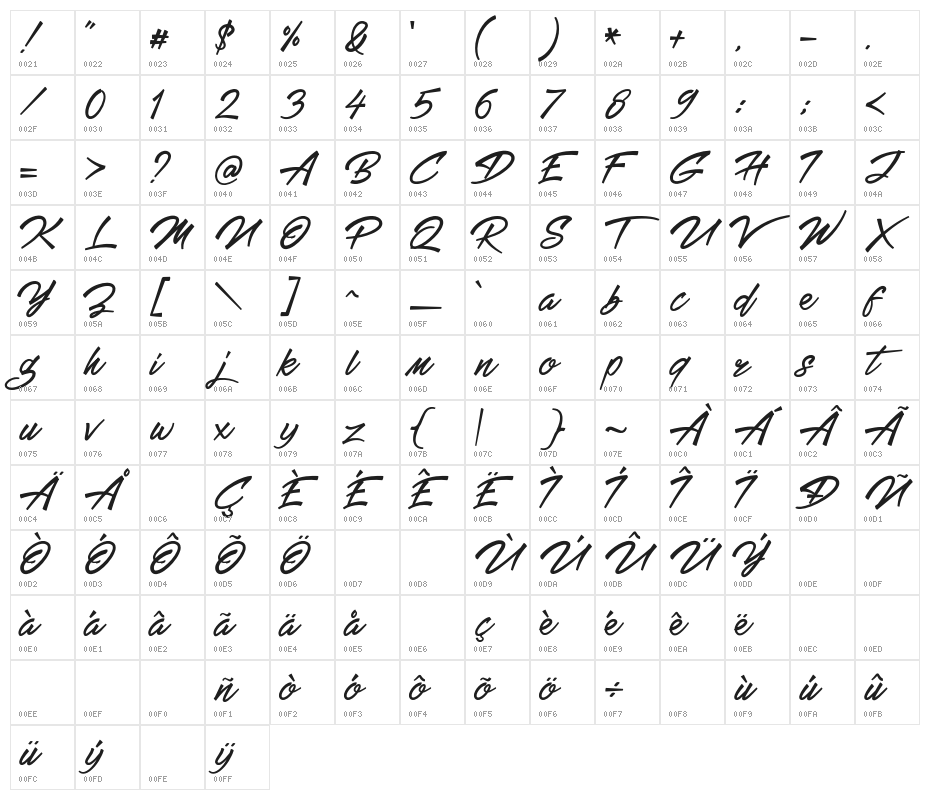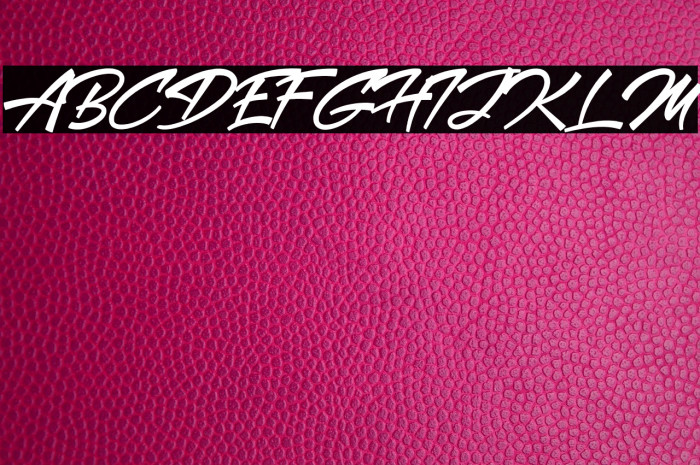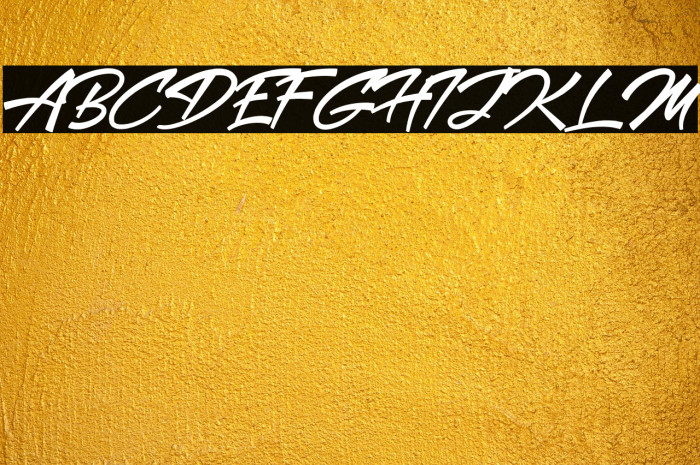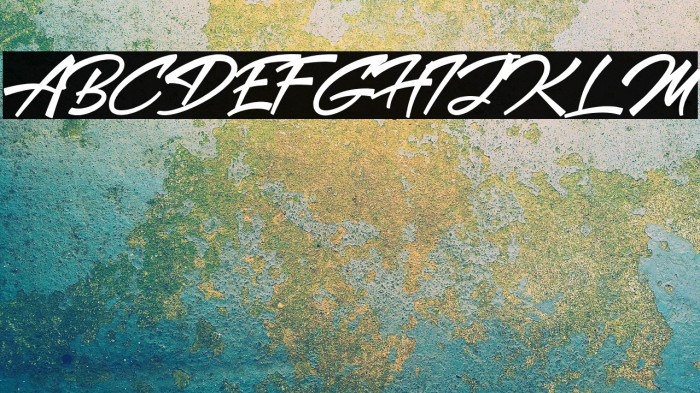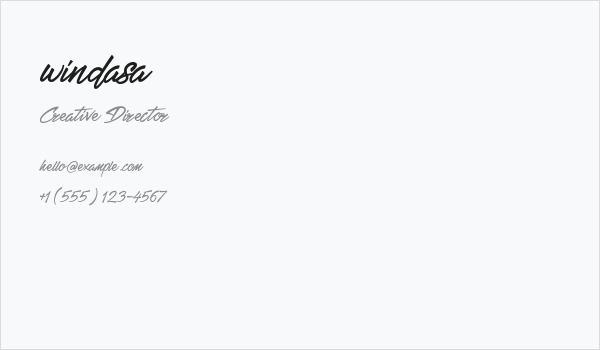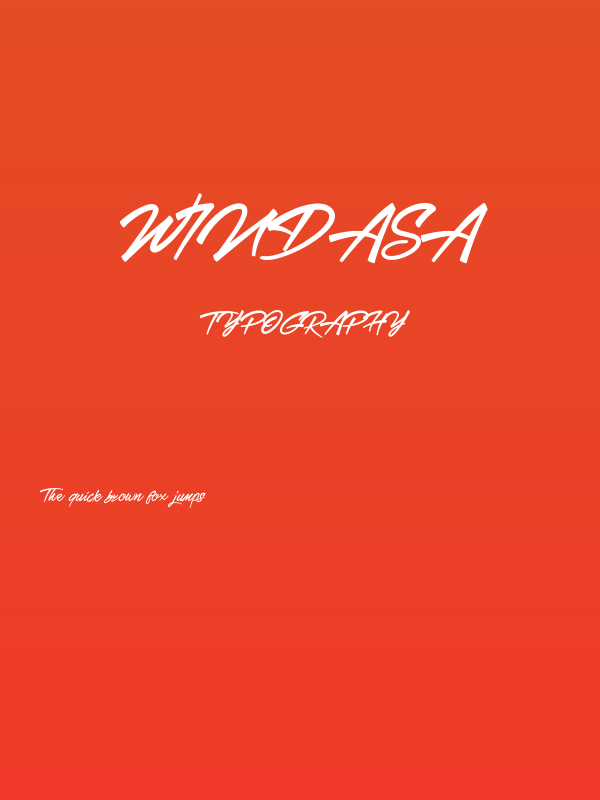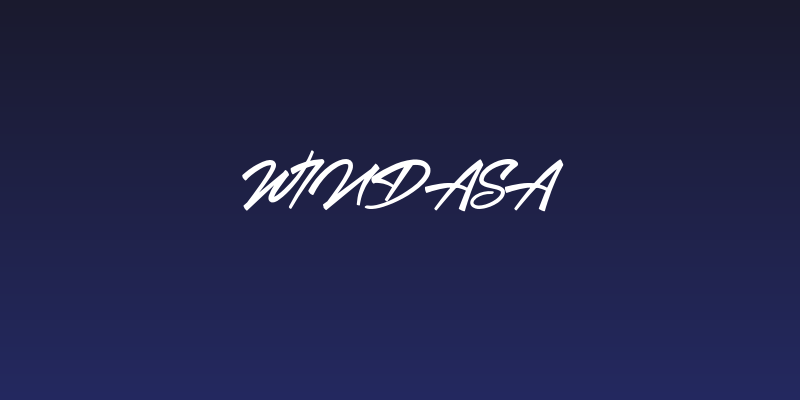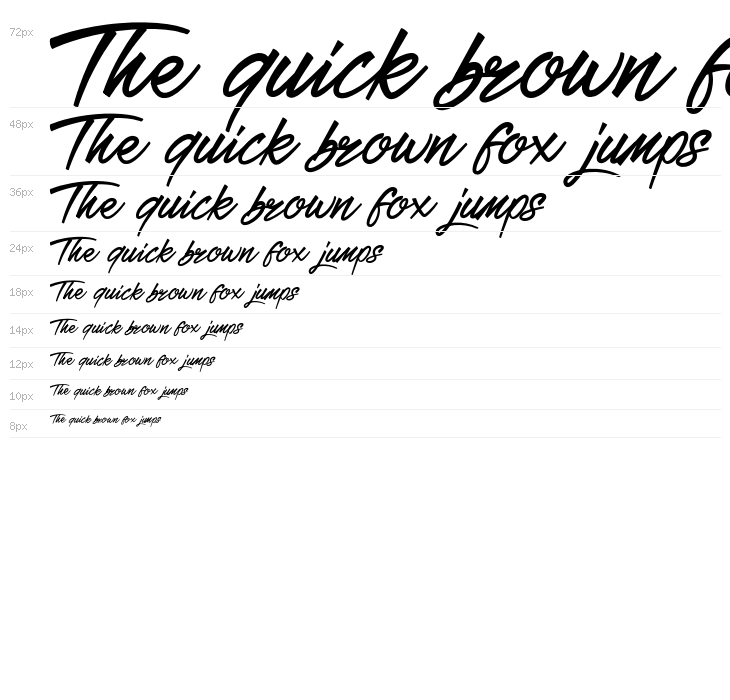
windasa Font
windasa Description
This font exudes a dynamic and energetic style, characterized by its bold, flowing script that mimics the fluidity of handwriting. The letters are interconnected with smooth, sweeping strokes, giving it a sense of motion and elegance. The uppercase letters are slightly more angular, while the lowercase letters maintain a consistent, rounded form. Numbers and special characters follow the same stylistic cues, ensuring uniformity across all elements. The overall appearance is both modern and expressive, making it suitable for projects that require a personal touch.
| Use Case | Logos, Headlines, Invitations |
| Proposed Projects | Ideal for branding, invitations, greeting cards, and any design requiring a personal, elegant touch. |